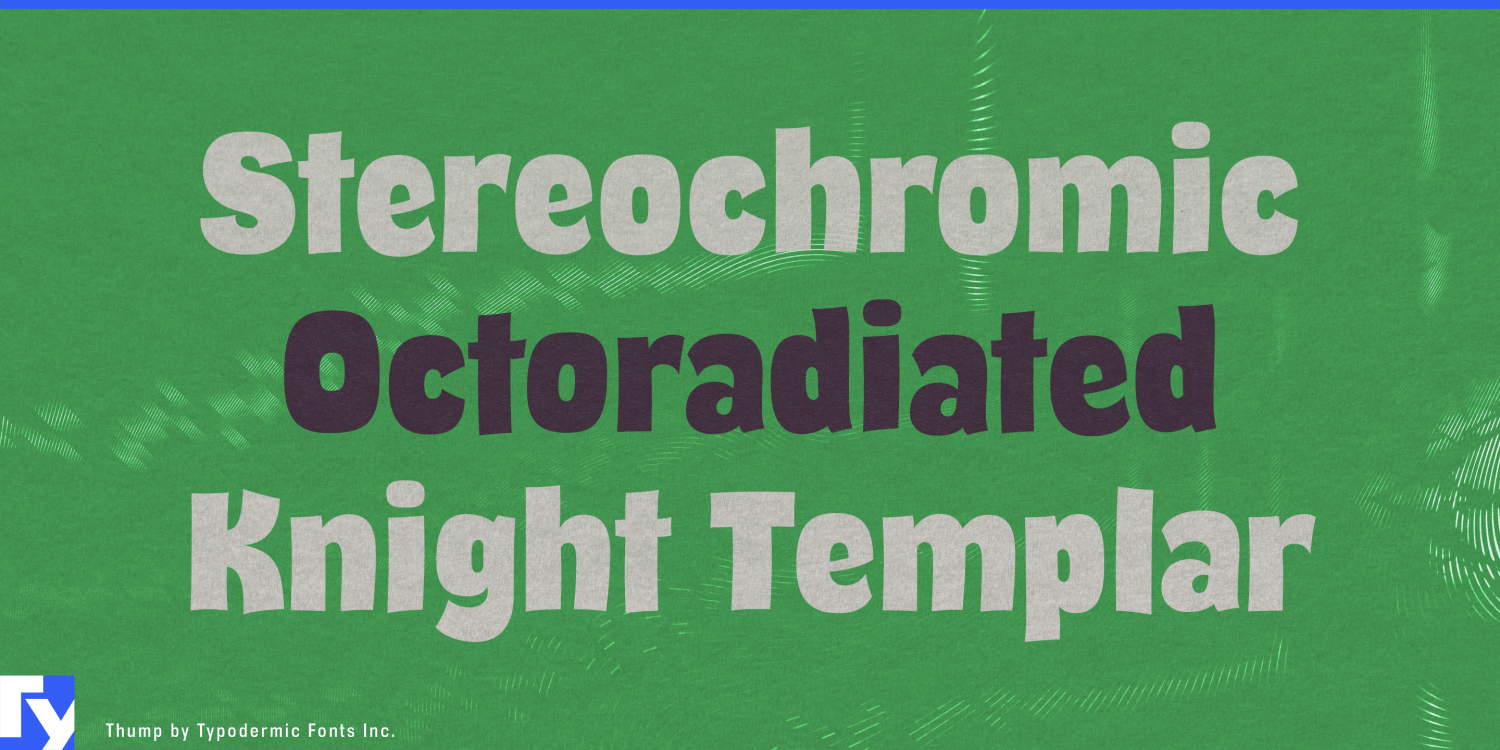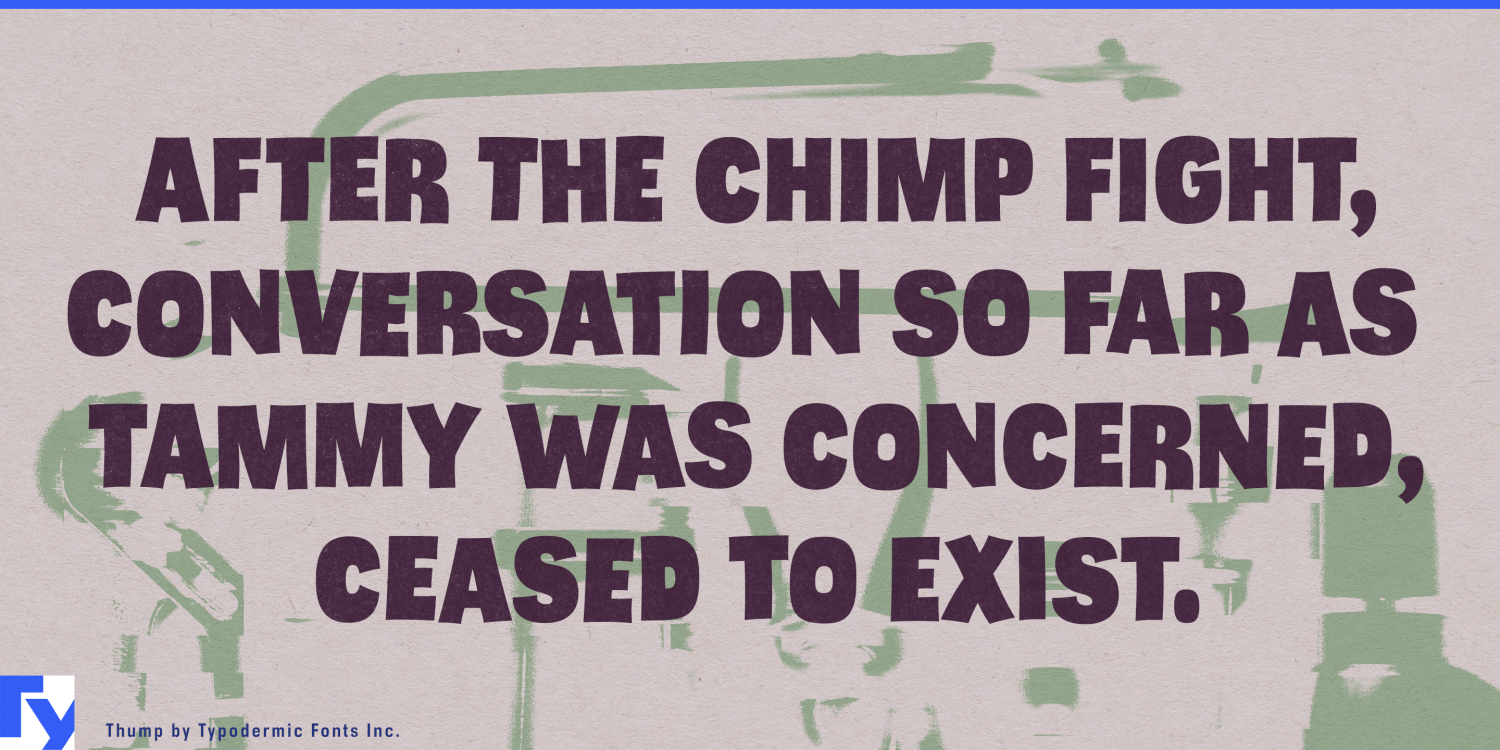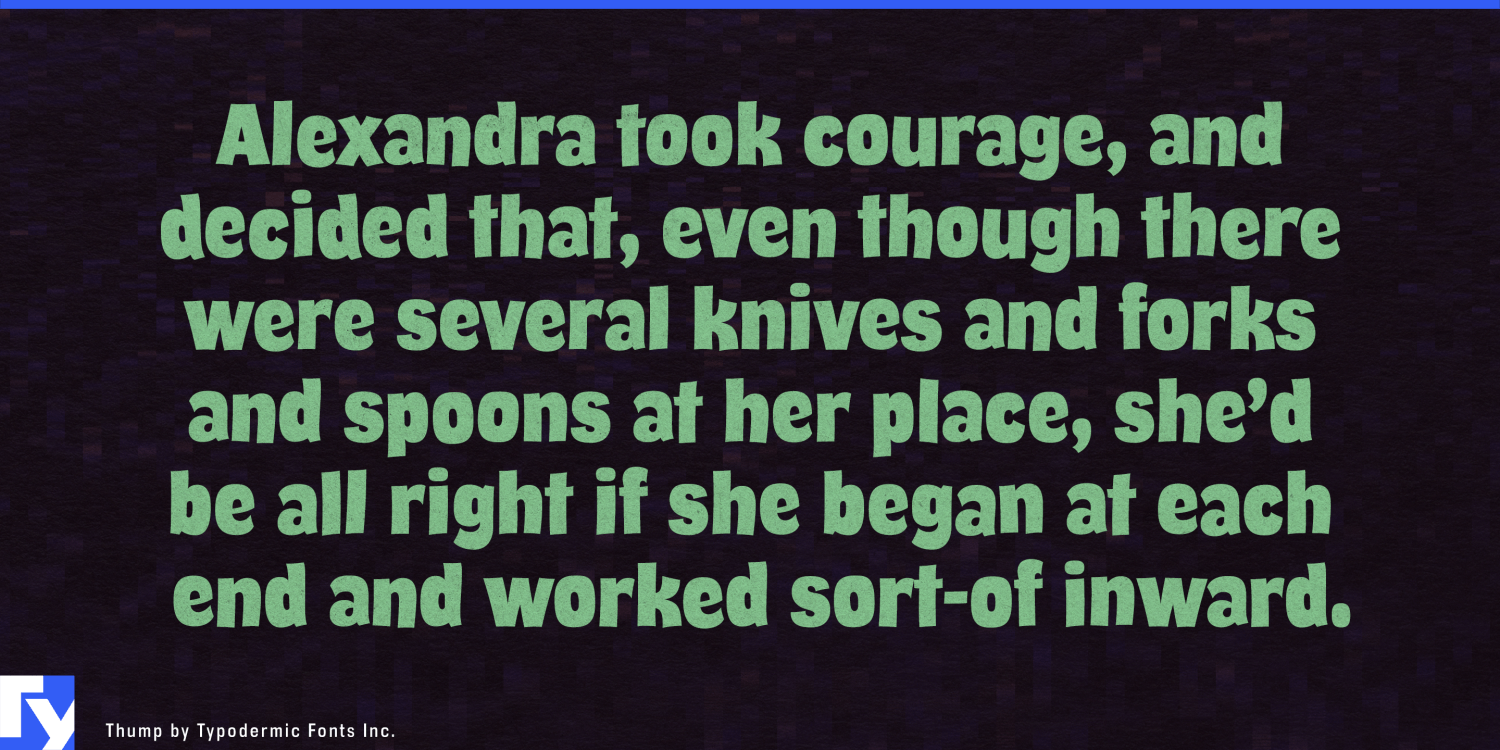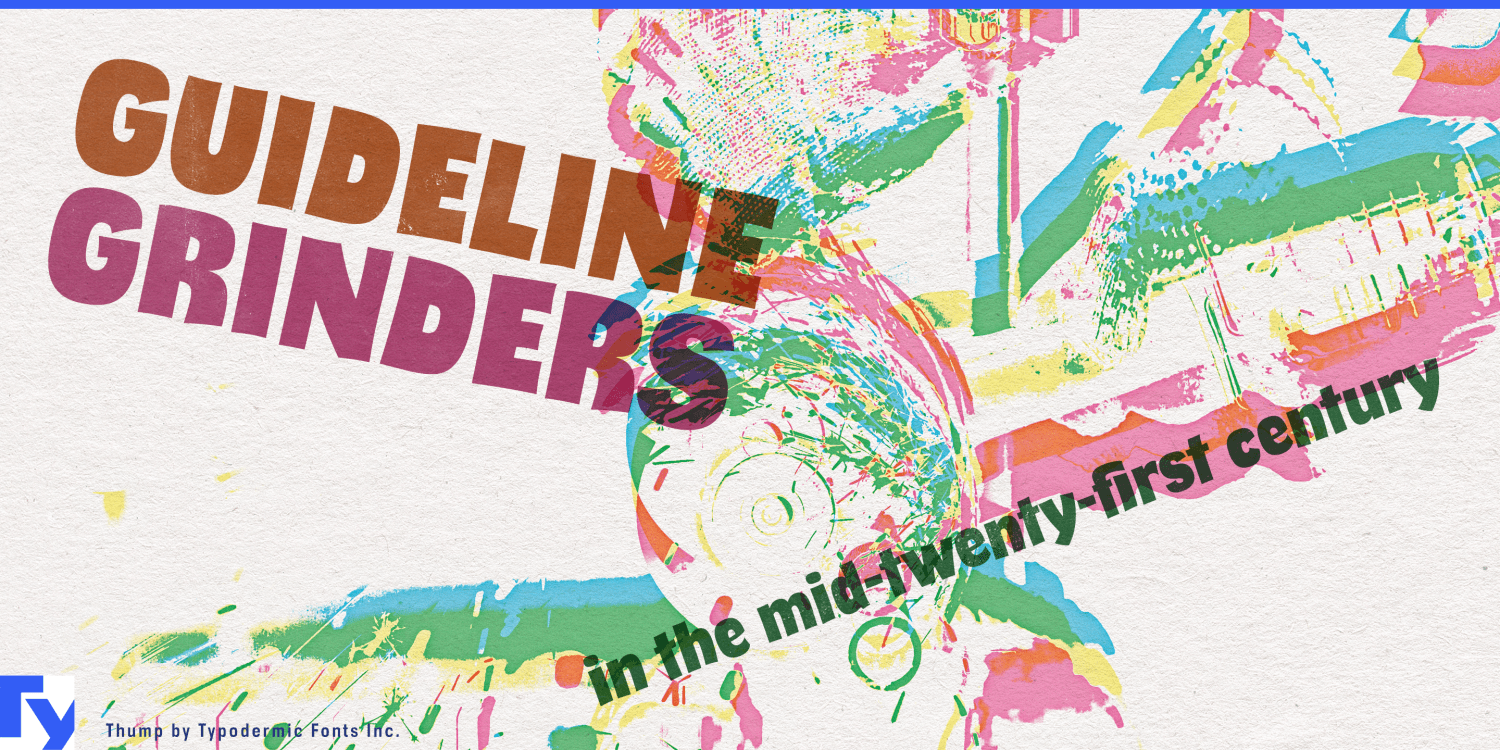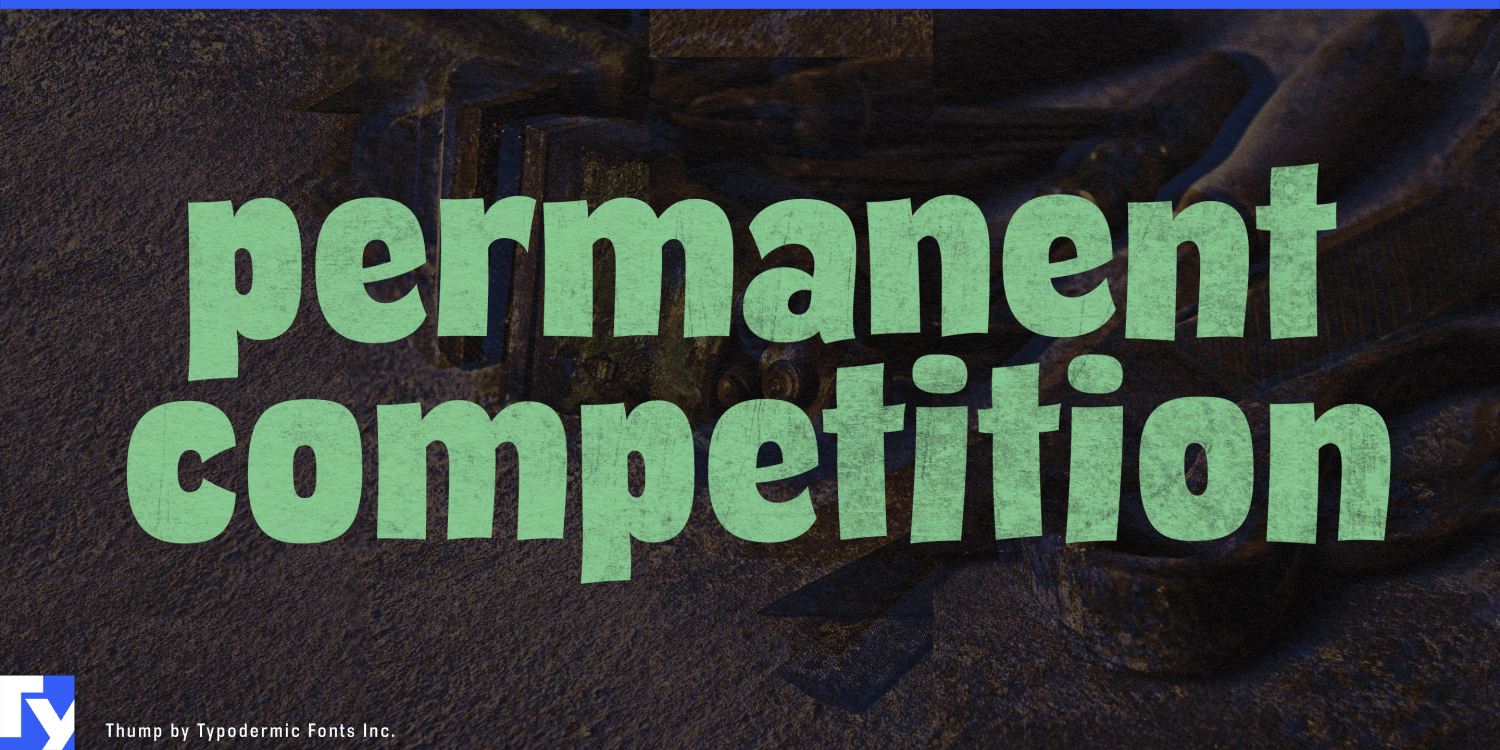
About Thump
Get ready to feel the Thump! This is typographic earthquake that’s about to shake up your designs and leave your audience trembling with excitement. Forget whispering; Thump is here to make some noise! Picture a font that struts onto your screen…